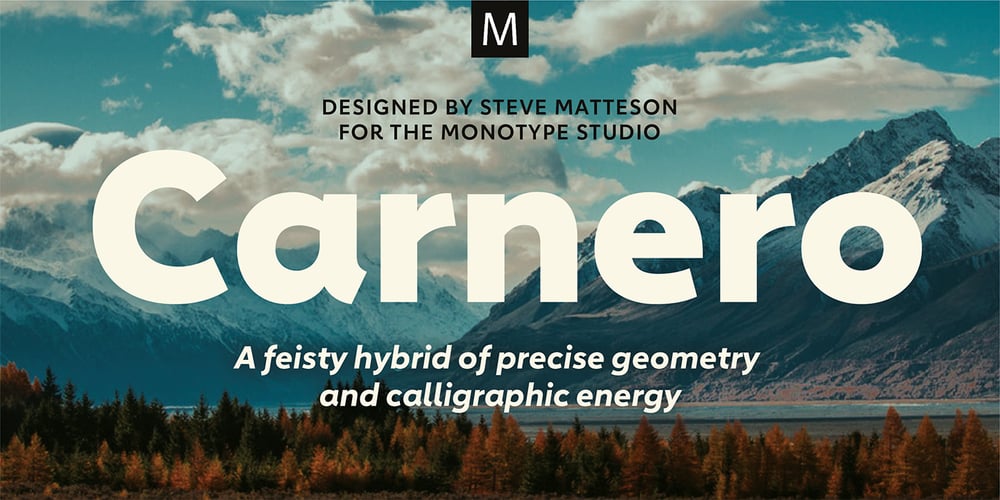
Carnero Font Family was designed by Steve Matteson and published by Monotype. Carnero contains 12 styles and family package options. Carnero™ is a feisty hybrid of precise geometry and calligraphic flair; a design that walks that fine line between being sensible and a standout. In an increasingly monotone typographic landscape – Carnero has a unique pulse that moves the reader along with a new energy. Carnero gives life to simple utility with kinetic letter shapes, open apertures, and generous counters. Drawn by Steve Matteson for the Monotype Studio, Carnero’s versatility is its strength. From digital ads and applications to packaging and branding, Carnero is comfortable and contemporary. The lightest and boldest weights create inviting headlines, while the middle weights read well for body copy. Used together, they build a lively brand and a clear hierarchy. Matteson infused Carnero with a modernist exterior resting on a 10th century calligraphic foundation. Delightful flourishes on the capital R and K, and lowercase a, k and l, give the design a distinctive demeanor; while the alternate italic swash caps are a saucy nod to the scribes. The result is a design that is warm, approachable – and a bit lighthearted. Matteson describes Carnero as, “transcending the static posture of the geometric sans genre.” The Carnero family is a compact collection of six distinct weights, ranging from an engaging light to an authoritative black, each with an italic counterpart. Its extended Latin character set ensures worry-free localization for eastern/western European languages. This is a design that will prove its value many times over. Matteson has drawn over 80 distinctive typeface families for major corporations, branding firms and retail sales. His passions for the outdoors and performing music balances an intense focus on work – and subtly finds its way into typefaces like Carnero. Matteson has designed custom fonts for three generations of the Microsoft Xbox® game console, the original core fonts for the Android® mobile-phone platform, in addition to branding typefaces for Toyota®, Rocket Mortgage®, and Google®. He also drew the Kootenay™ family, Monotype’s proprietary branding typeface. Matteson’s retail designs range from the elegant and utilitarian Open Serif™ (a companion to Google’s Open Sans), to a growing series of Frederic Goudy revivals.Carnero Variables are font files which are featuring one axis and have a preset instance from Light to Black.